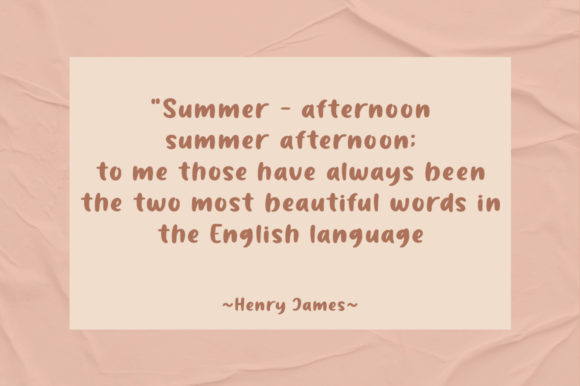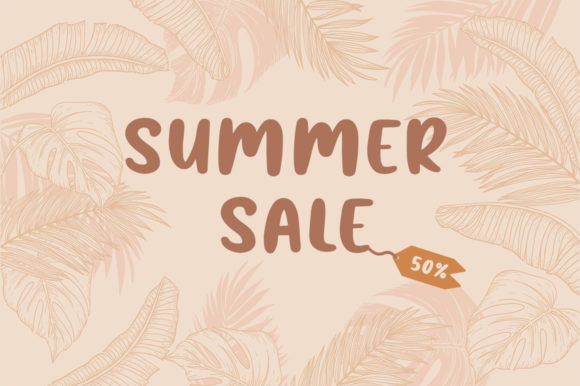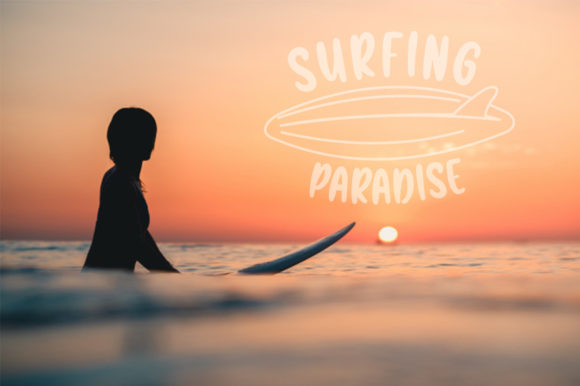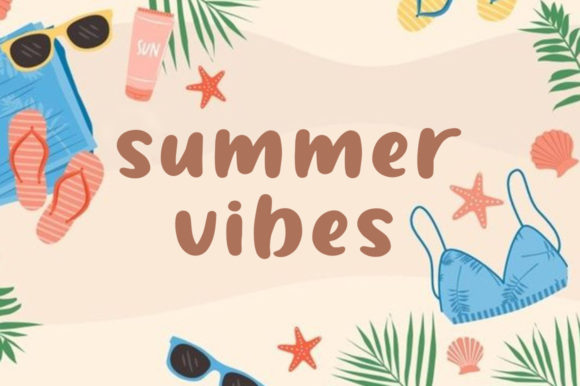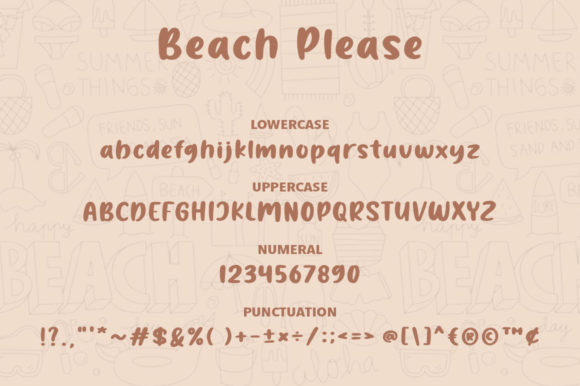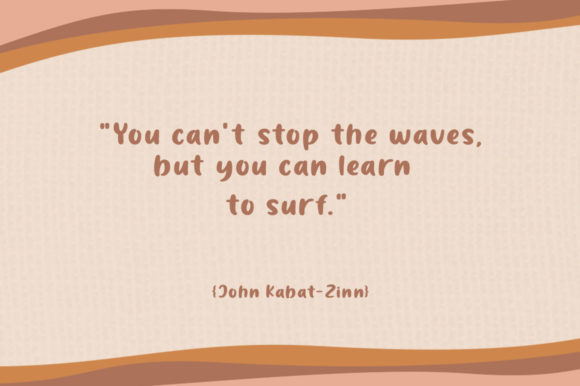
Where Creativity Meets the Coast
Who hasn’t had that magical moment of inspiration while strolling along the beach, the sound of waves and seagulls creating the perfect melody to spark your imagination? For designers, this feeling is what drives them to create something truly special. And for those who crave that carefree, beachy vibe, there’s a font that’s sure to make your designs shine – Beach Please Font.
This sweet and playful brushed handwritten font is the perfect companion for your next creative project. Its natural and unique style makes it incredibly fitting to a large pool of designs, from beach-themed invitations to summer-inspired social media posts. The only limit is your imagination, and with Beach Please Font, the possibilities are endless.
Beach Please Font Key Features
- Font Family: Beach Please Font offers a unique and playful font family with multiple styles, including Regular, Italic, Bold, and Bold Italic.
- Unique Characteristics: Beach Please Font features a unique, hand-drawn design with a relaxed, beachy vibe, making it perfect for summer-themed projects, travel branding, and outdoor-related designs.
- Character Count: The font includes a comprehensive character set, covering Latin, Cyrillic, and Greek alphabets, as well as a range of punctuation marks and symbols.
Designer Review: Beach Please Font
Beach Please Font is a unique and quirky sans-serif font that’s perfect for creating a fun and playful atmosphere. ✨ Its rounded edges and loose letterforms evoke a sense of carefree abandon, making it ideal for projects that require a lighthearted tone.
Some of the things I love about Beach Please Font include:
- Its versatility: Beach Please Font works well in both digital and print applications.
- Its readability: The font is surprisingly easy to read, despite its unconventional design.
- Its expressiveness: Beach Please Font is perfect for conveying a sense of playfulness and fun.
However, I do have some concerns:
- Its lack of consistency: Some letters, like the “a” and the “e”, can be a bit wonky.
- Its limited scalability: Beach Please Font can start to look a bit pixelated at larger font sizes.
Overall, I think Beach Please Font is a great addition to any designer’s toolkit. It’s a fun and creative font that’s perfect for projects that require a playful touch. With a bit of tweaking and experimentation, I think it could be even more effective.
Getting the Most Out of Beach Please Font
For best results, use the Beach Please font for titles, headings, or short text phrases that evoke a beachy or tropical vibe.
Combine with images of palm trees, seashells, or other beach-related elements for a cohesive look.
The Beach Please font is perfect for:
Beach-themed party invitations or decorations
Tropical vacation marketing materials
Summer-themed social media posts or blog articles